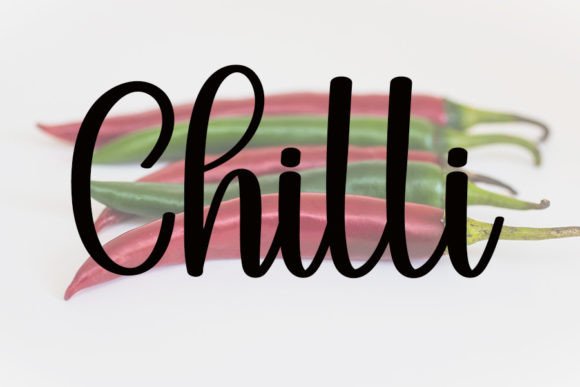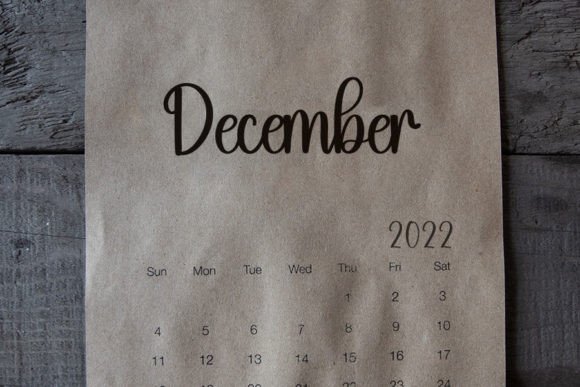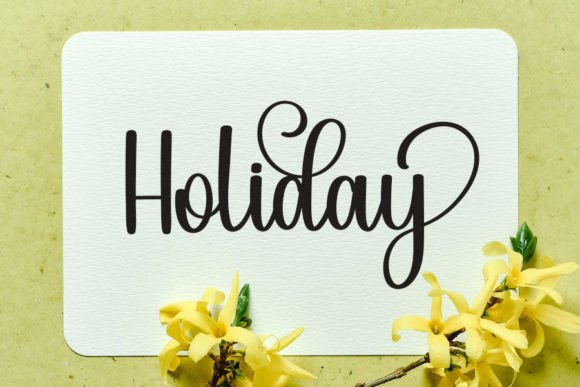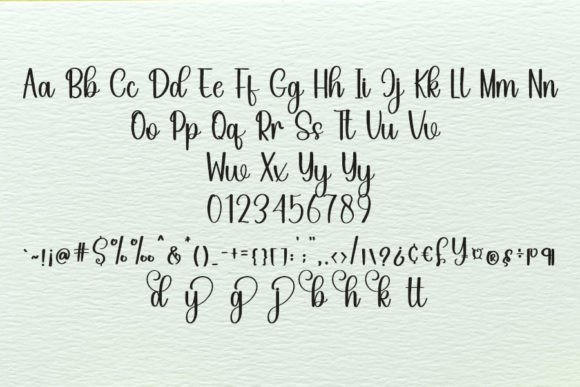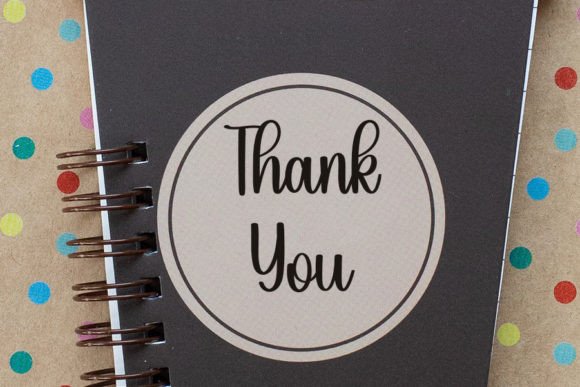
The Quest for the Perfect Font: Discovering Friday Font
Ah, the eternal struggle of finding the perfect font for your design project. I recall a particularly frustrating moment when I was working on a client’s branding project, and I just couldn’t seem to find a font that captured the essence of their elegant and modern vibe. That was until I stumbled upon Friday Font, a stylish handwritten font that has since become a staple in my design toolkit.
A First Impression: What Makes Friday Font Special
Friday Font is a stunning handwritten font that exudes a contemporary atmosphere with impeccable form, inspired by timeless classic calligraphy. Its balanced and varied design makes it an excellent choice for enhancing the beauty of your projects. Here are some of the things I love about Friday Font:
- ✨ Elegant and modern aesthetic
- 💫 Beautifully crafted with attention to detail
- 🎨 Versatile and adaptable to various design contexts
While Friday Font has won my heart, it’s not without its quirks. Here are a few things to consider:
- 🤔 Limited availability of certain OpenType features in some platforms
- ⚠️ May not be suitable for very large or very small text sizes
The Story Behind Friday Font
Friday Font was designed with the intention of capturing the essence of timeless classic calligraphy in a modern, stylish package. The designer aimed to create a font that would be both elegant and versatile, suitable for a wide range of design applications. The result is a font that exudes sophistication and poise, perfect for creative projects that demand a high level of visual sophistication.
- Q: Is Friday Font suitable for body text?
- A: While Friday Font is highly legible, it’s best suited for headings and titles. For body text, consider a more traditional serif or sans-serif font.